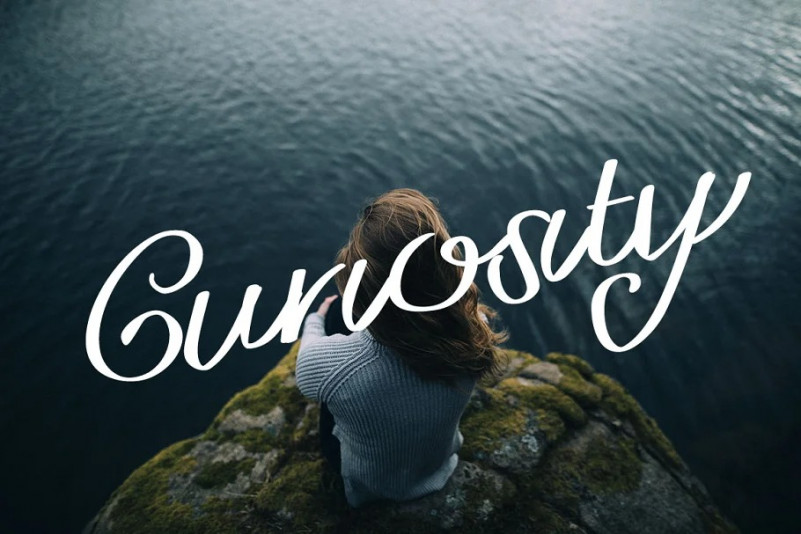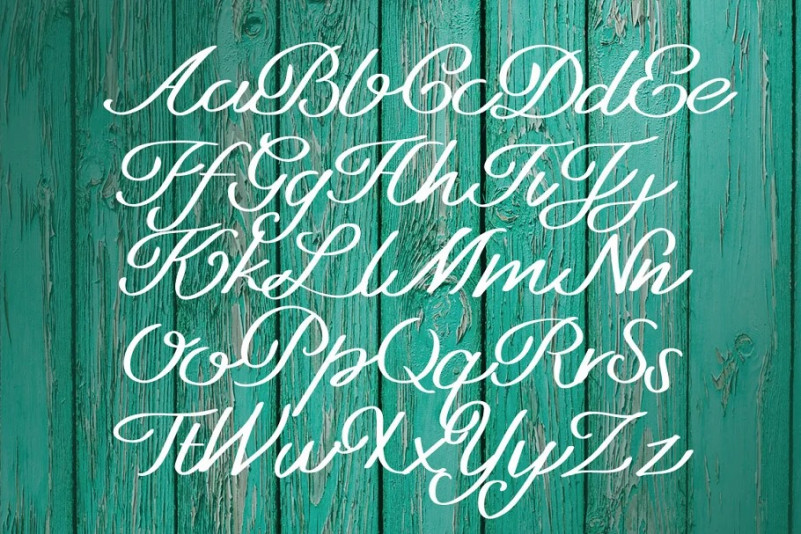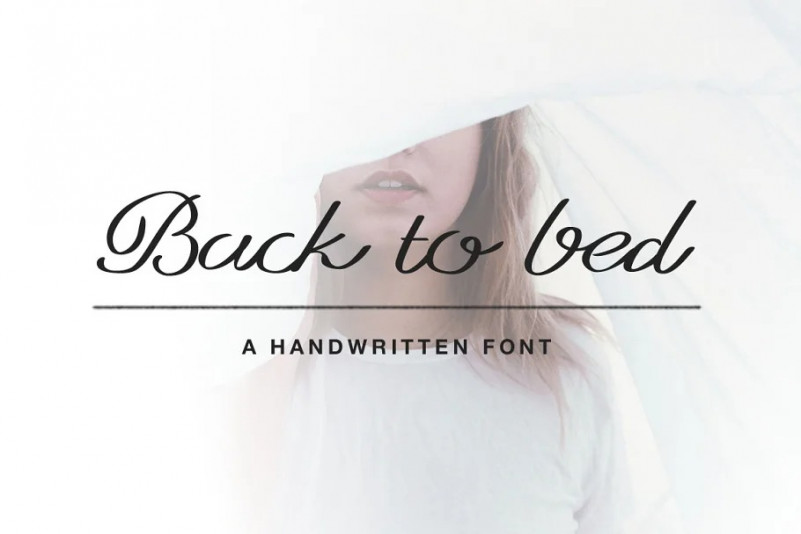
Back to Bed Font
Back to Bed is a handwritten/handlettered sans serif script typeface. It’s perfect on wedding invitations, wedding stationery, business cards, logo, and more! I personally recommend giving it a try on social media or blog images.
Back to Bed is the perfect bridge between adding a personal handwritten touch to any item without the hassle of actually having to handletter it.